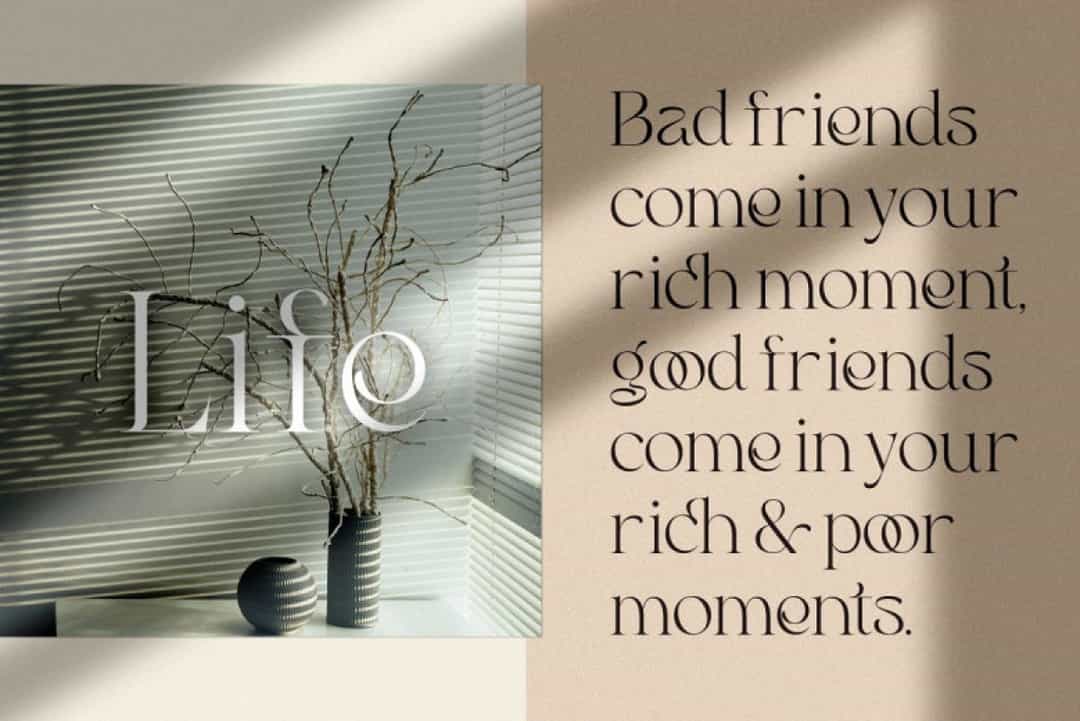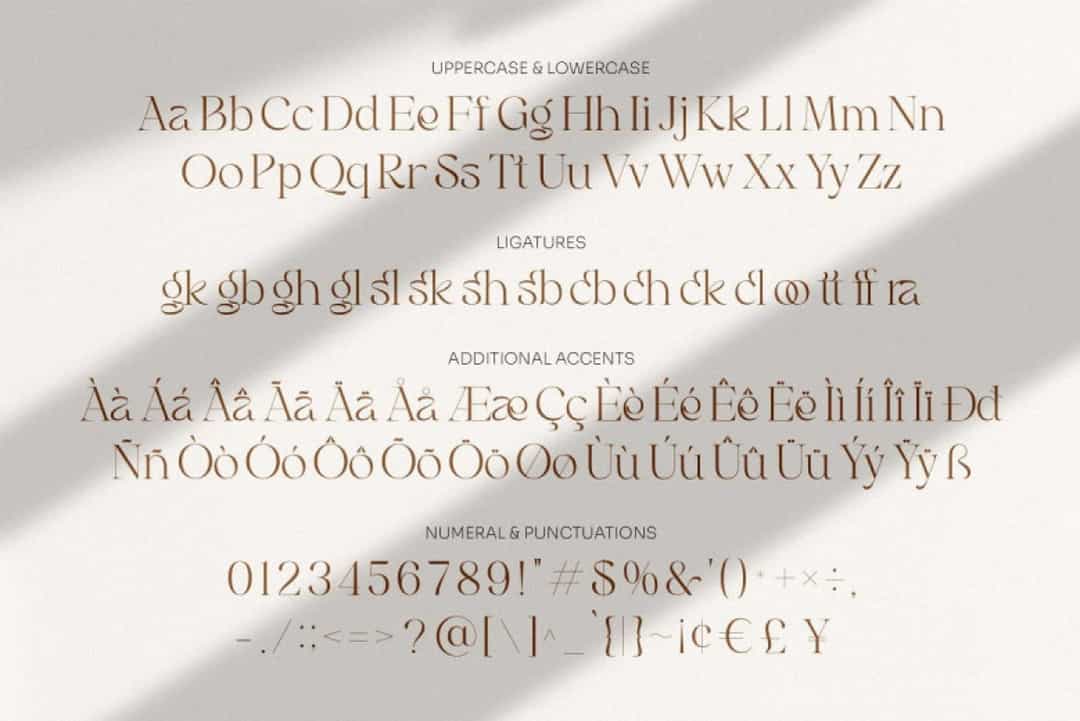
Black Delights Elegant Ligatures Connected Serif is a stylish and distinctive font which uses Ligatures to connect letters seamlessly, perfect for adding distinctive designs to wordmark logos monograms pull quotes or monograms. Black Delights boasts 16 ligatures that can easily connect letters effortlessly – they can even be disabled if required for standard writing!